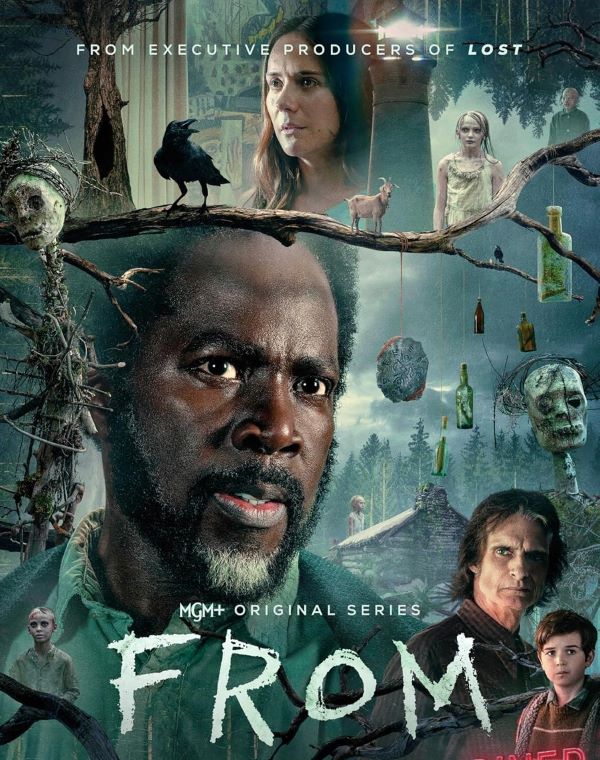
From Font (TV Series)
What Font is From (TV Series)?
The From font is most likely a custom designed typeface however there is a font named Afraid by FG Studios(can be the replica), possibly from their collection of custom fonts. While the exact font used in the series is not publicly confirmed, we’ve found a free alternative font that closely resembles the show’s distinctive typeface. This free version captures the same eerie and unsettling aesthetic, making it a suitable choice for design projects inspired by the series’ visual identity.
About From TV Series
From is an American horror television series that premiered on Epix (now MGM+) in 2022. Created by John Griffin, the show follows a group of people who become trapped in a mysterious town in middle America, where they must fight to survive and uncover the secrets of the town’s terrifying supernatural forces. The series blends elements of horror, mystery, and psychological thriller, with a focus on character development and suspenseful storytelling. The ensemble cast includes Harold Perrineau, Catalina Sandino Moreno, and Eion Bailey. From has been praised for its atmospheric tension and complex narrative, drawing comparisons to other genre-defying series like Lost and The Twilight Zone.